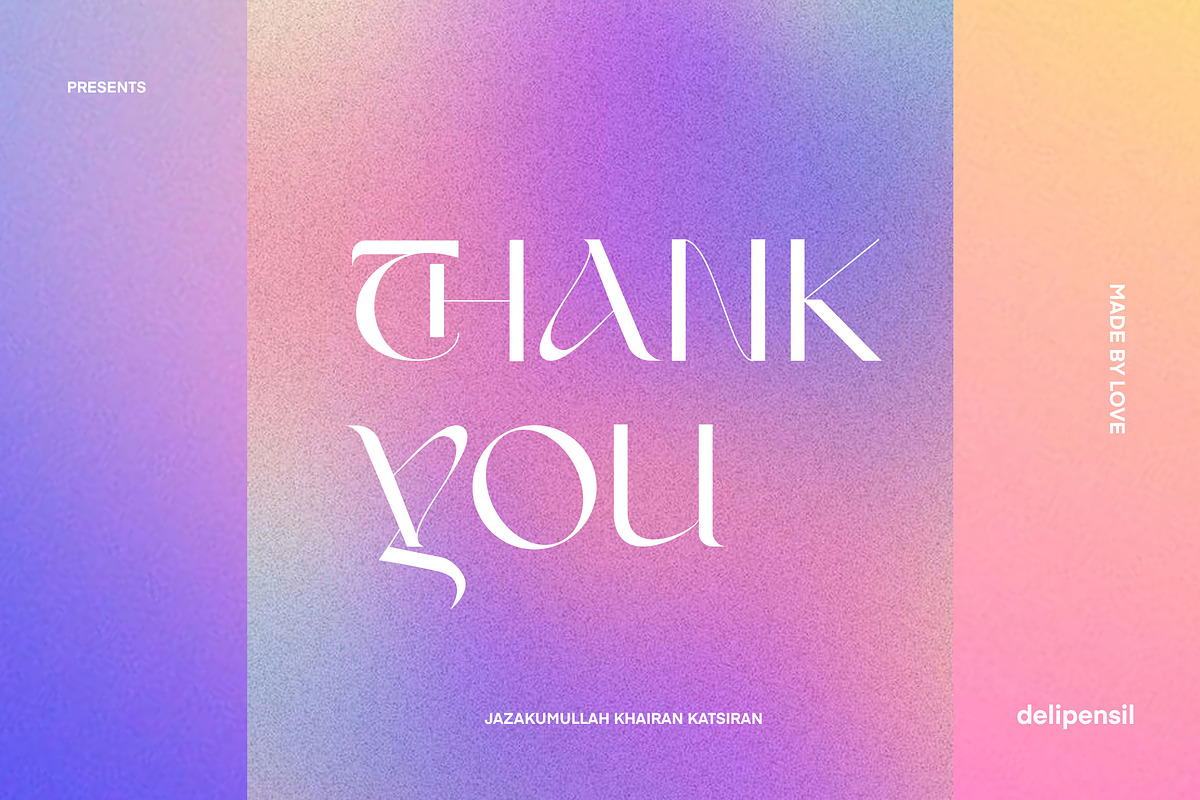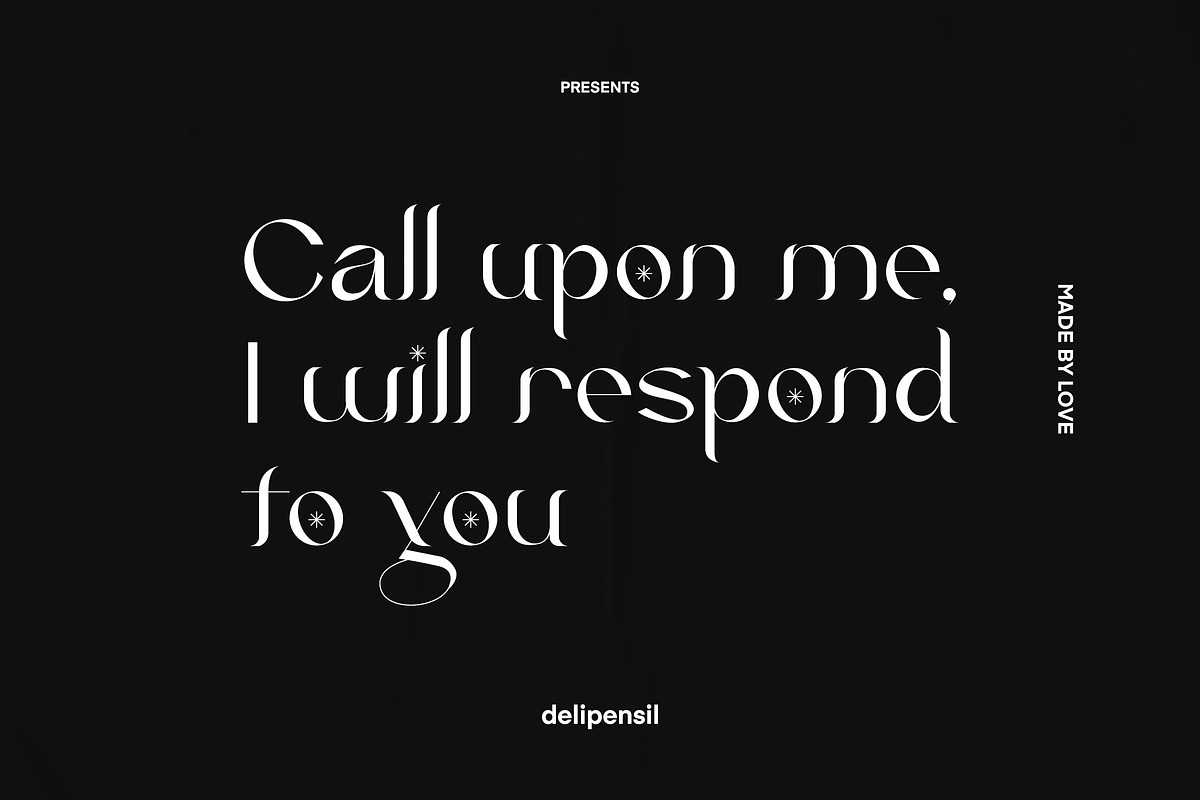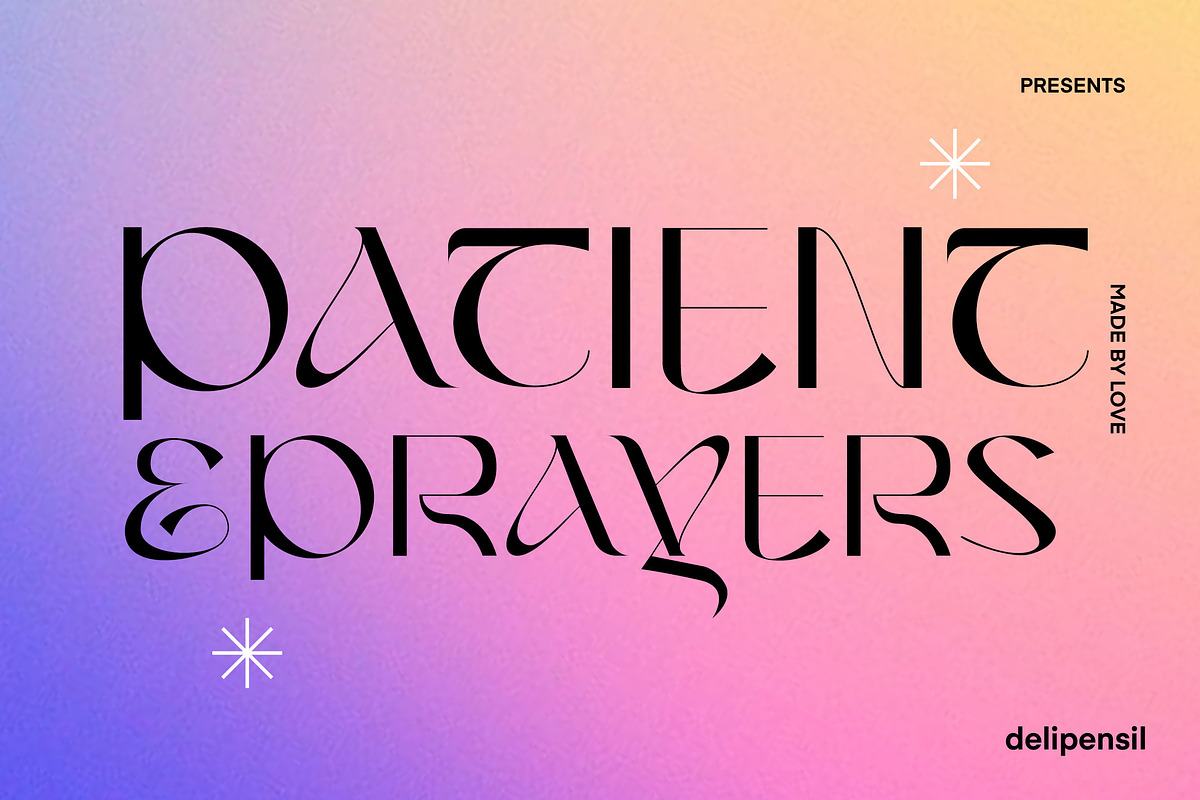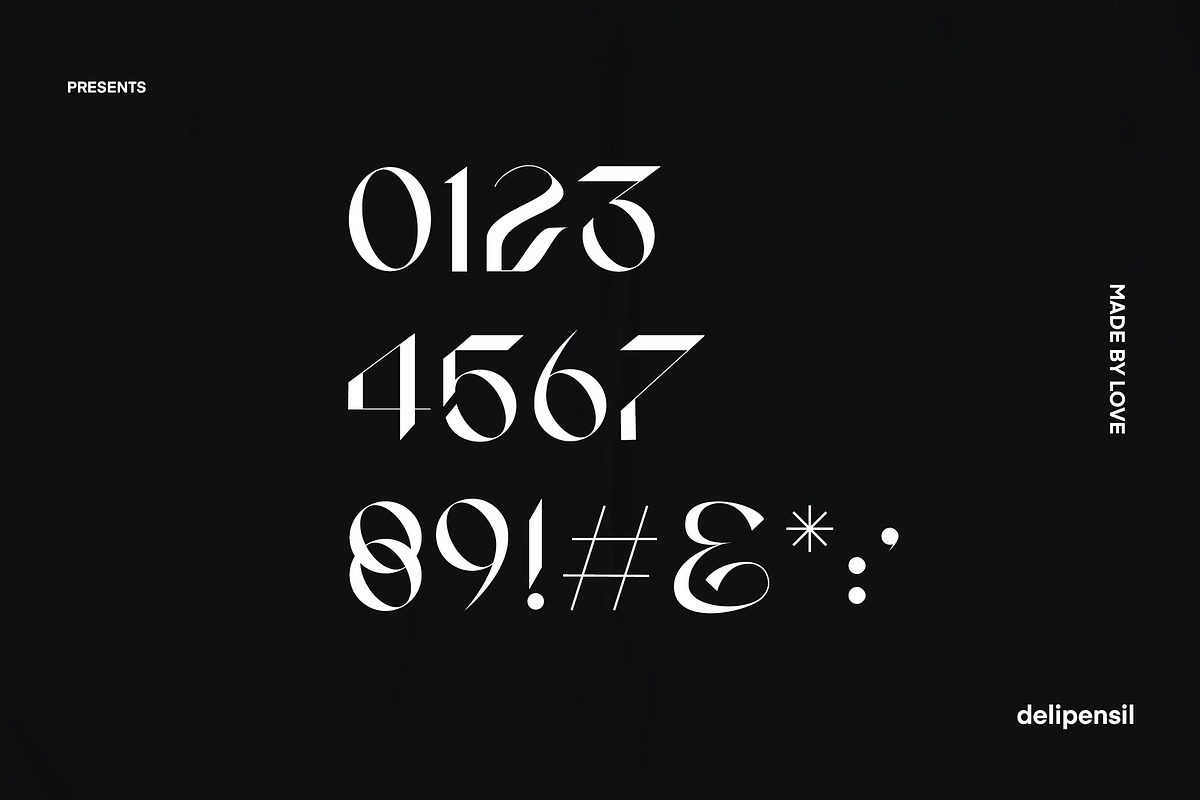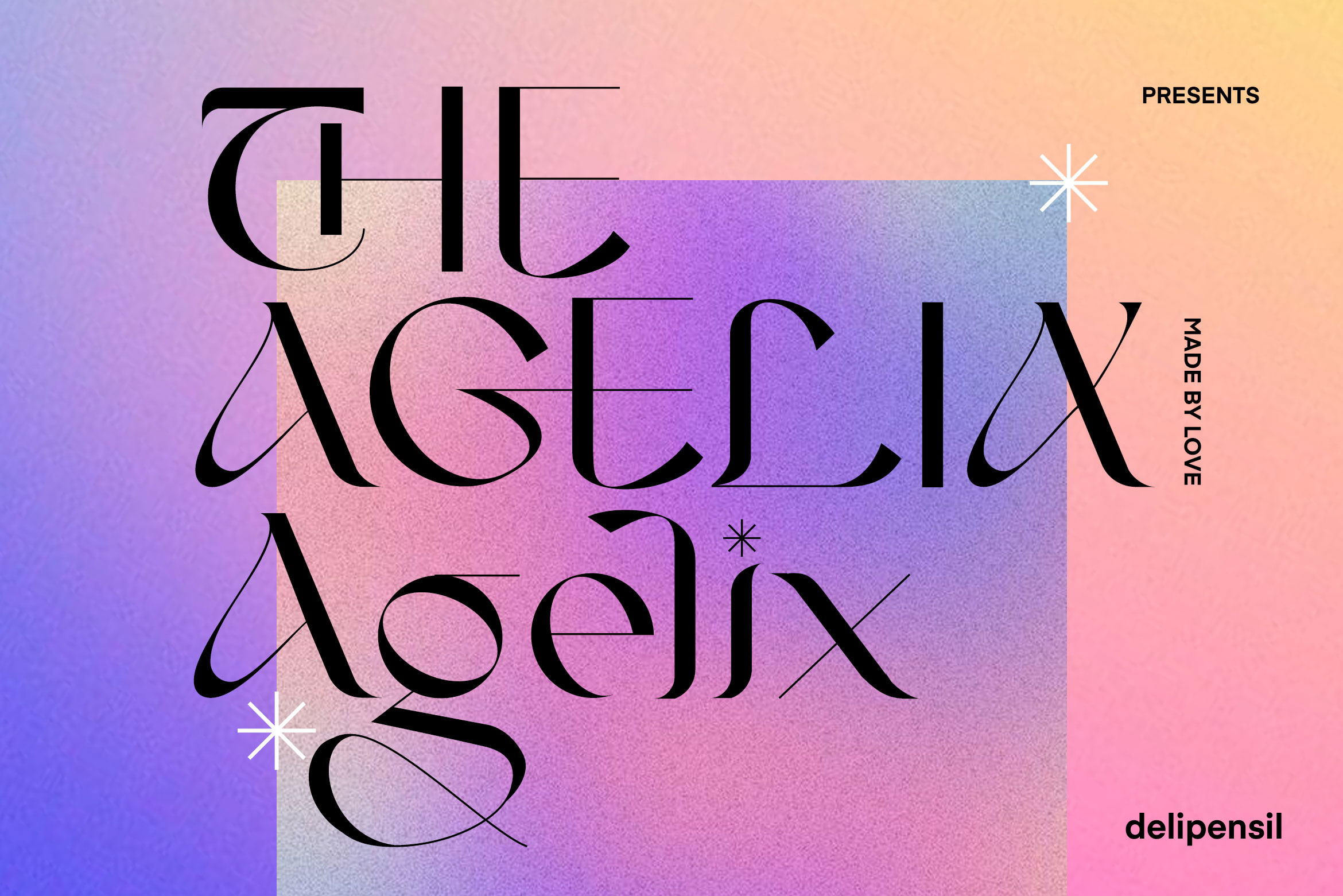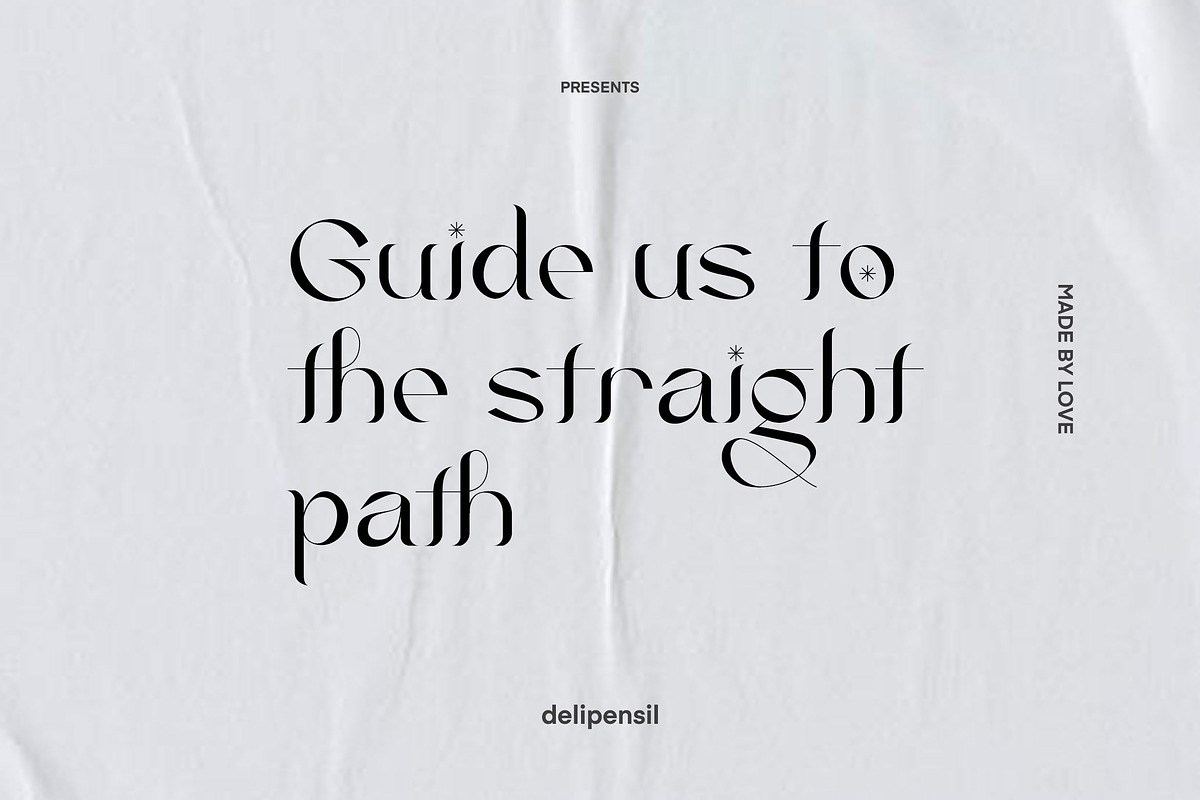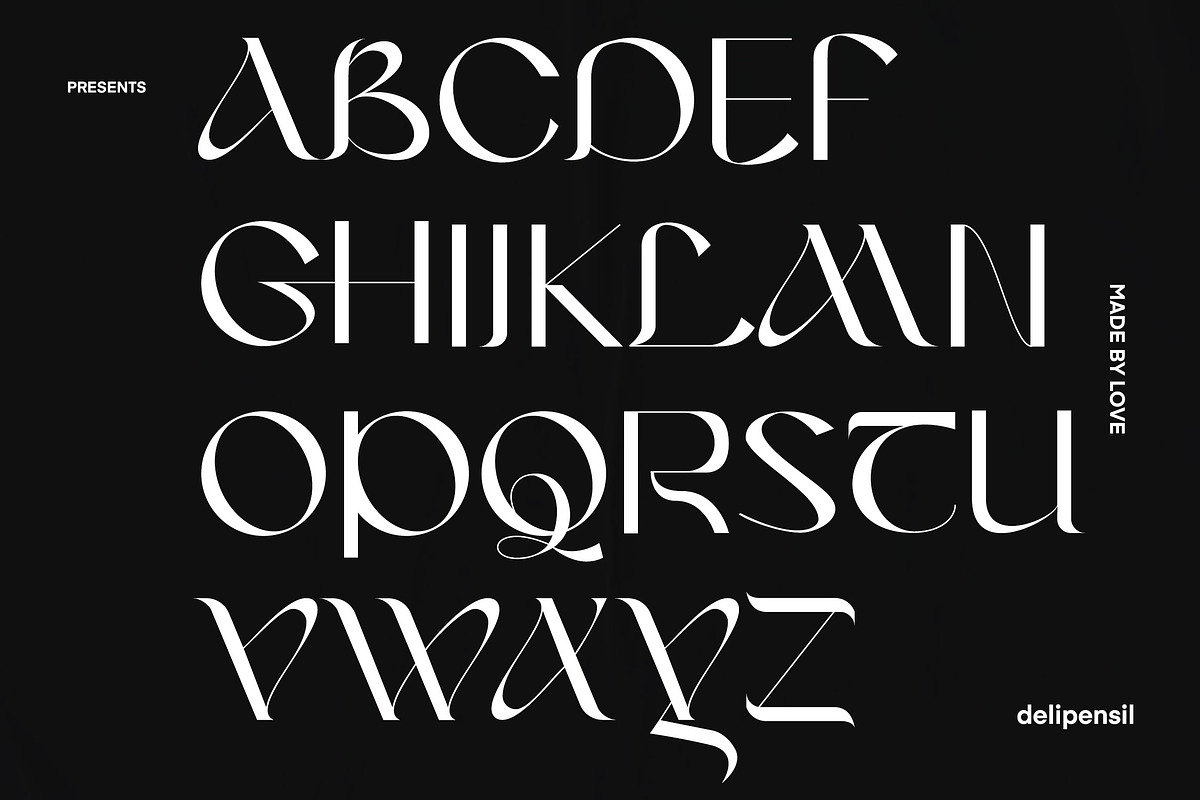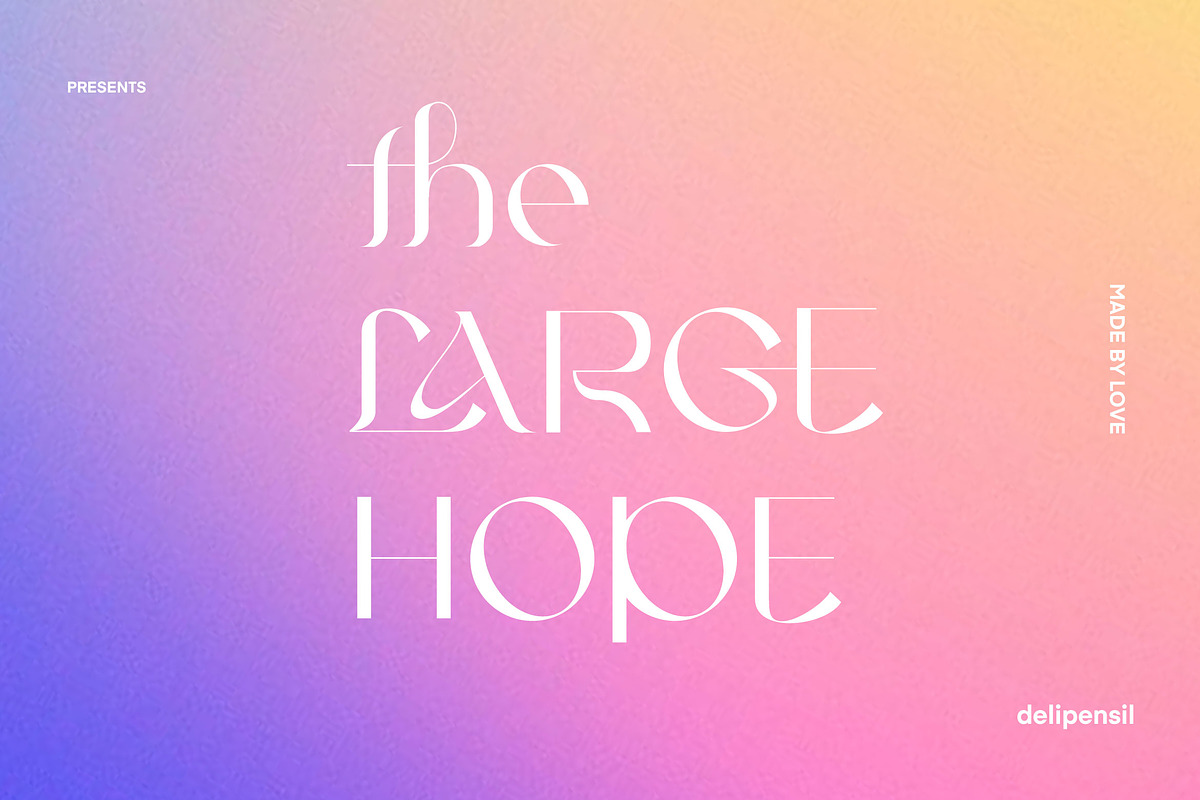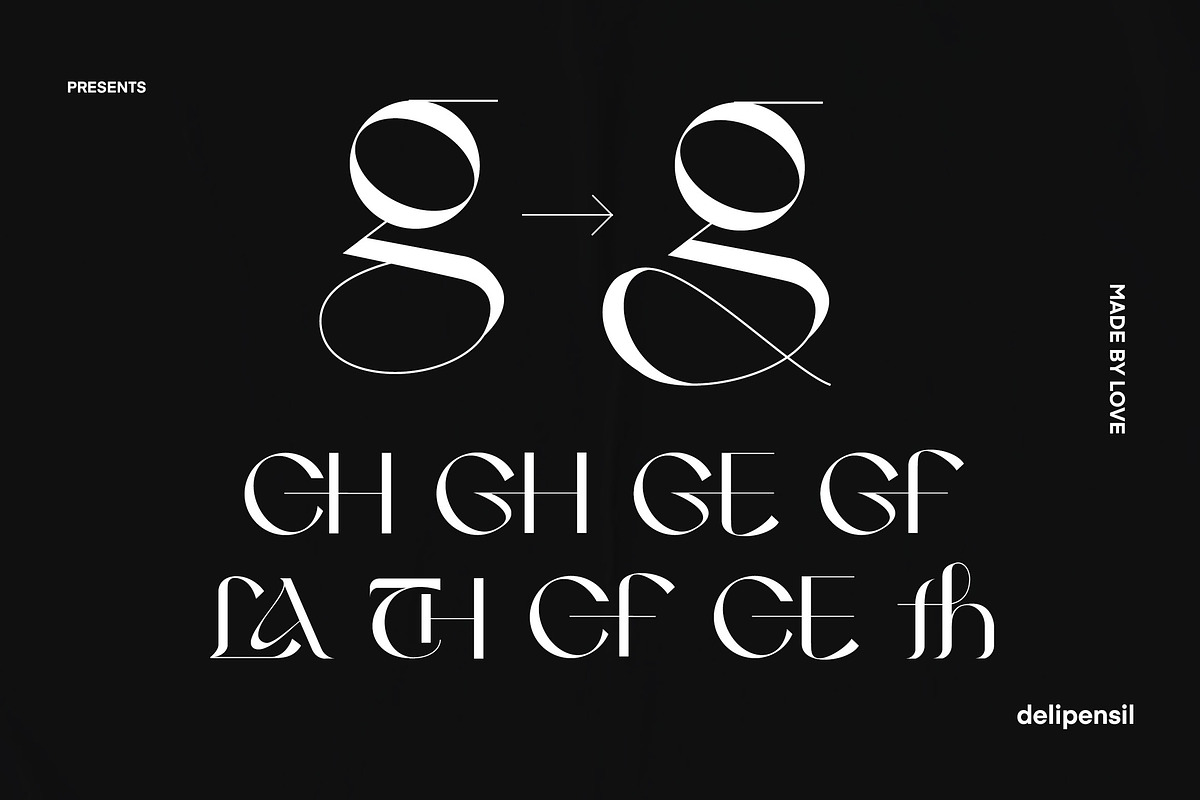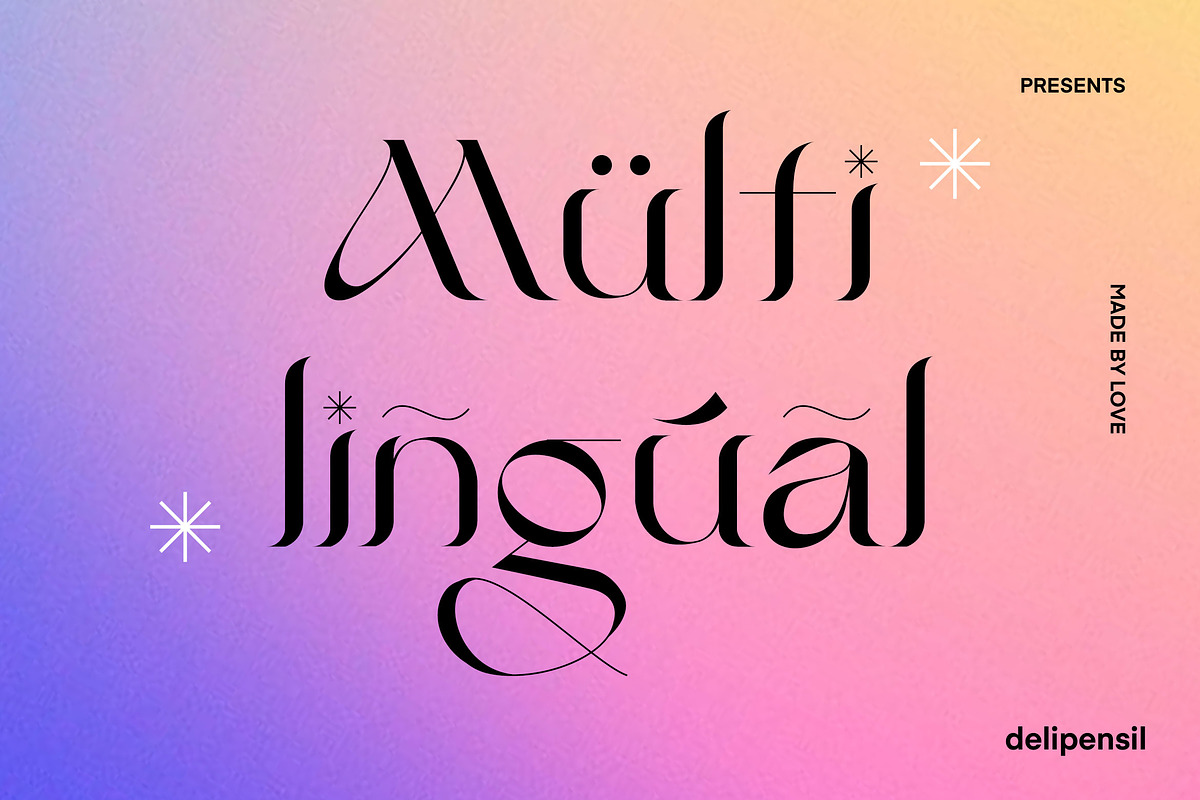
AGELIX - Modern Serif Typeface
Bismillah, Introduction AGELIX - Modern Serif Typeface
Beauty Serif font, clean classic and mindful , it combine in one font, use this font for anything beauty place for your logo, headline, cover book, magazine and many more
- AGELIX Kerning Style
- AGELIX Ligature Style